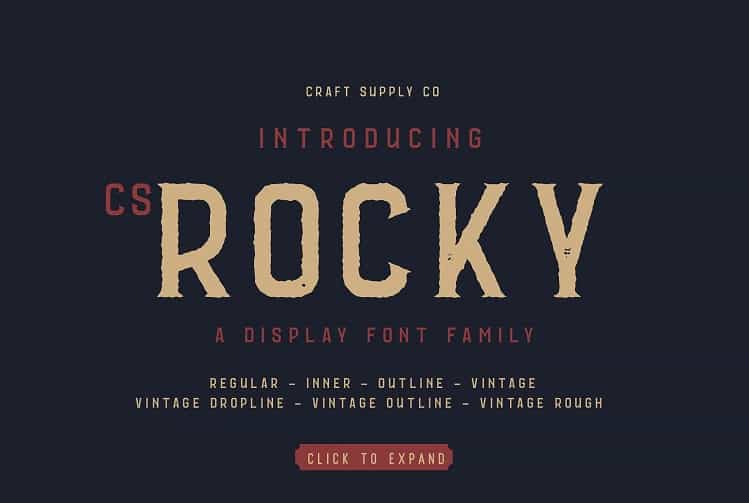
CS Rocky Font
Discover CS Rocky Font, part of the   Sans Serif 3D Fonts Display Decorative collection—a versatile and unique font perfect for adding a personal touch to your projects. Download it for free and enjoy crafting designs with style, from invitations to social media posts. This font is available exclusively for personal use, giving you the freedom to create without limits. Unlock your creativity with CS Rocky Font today!
Introducing Font Bundle. It is scripted and dispersed by Craft Supply Co. . This pack contains 4 font families for a total of 16 fonts (Display & Sans Serif, Serif) and more than one hundred illustrations, labels, and badges. This package is a great set of tools for display. It is a good idea to create posters, headings, letterhead, merchandise, logos and t-shirts as well as magazine covers.